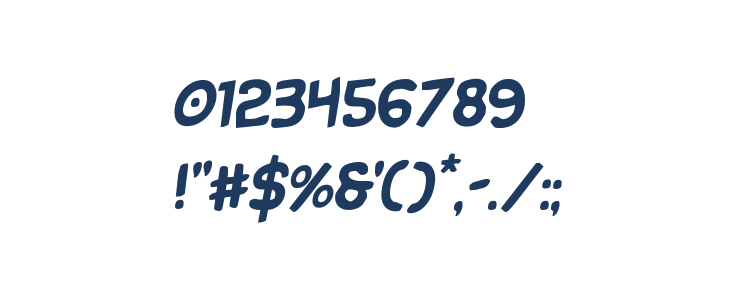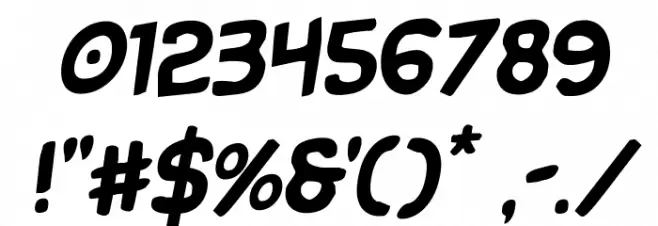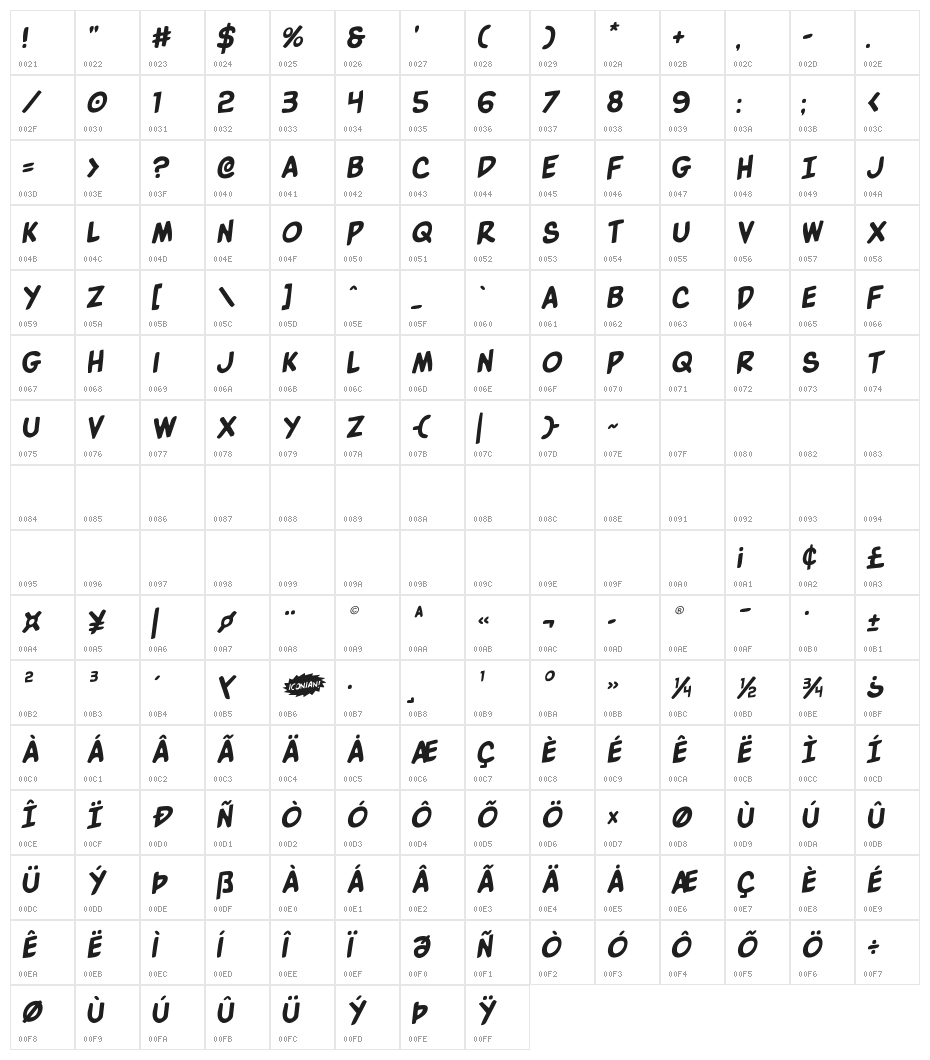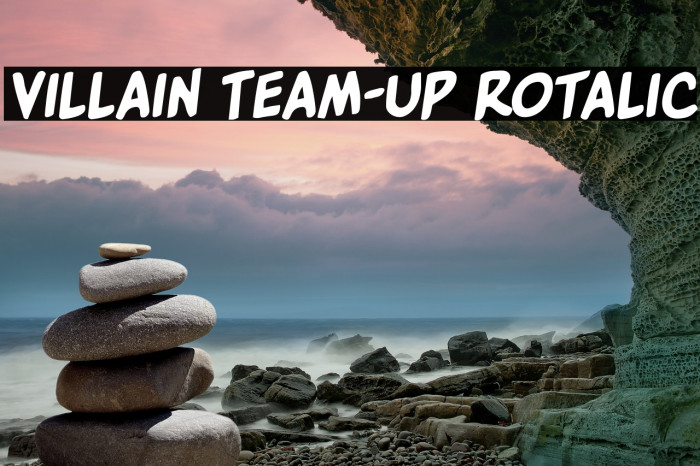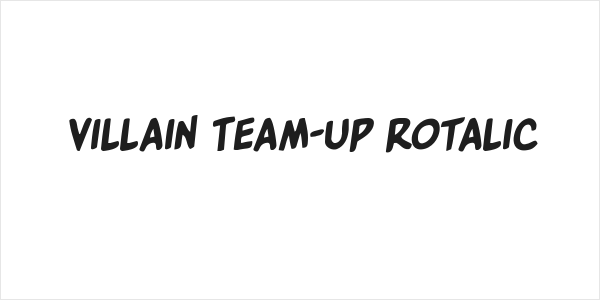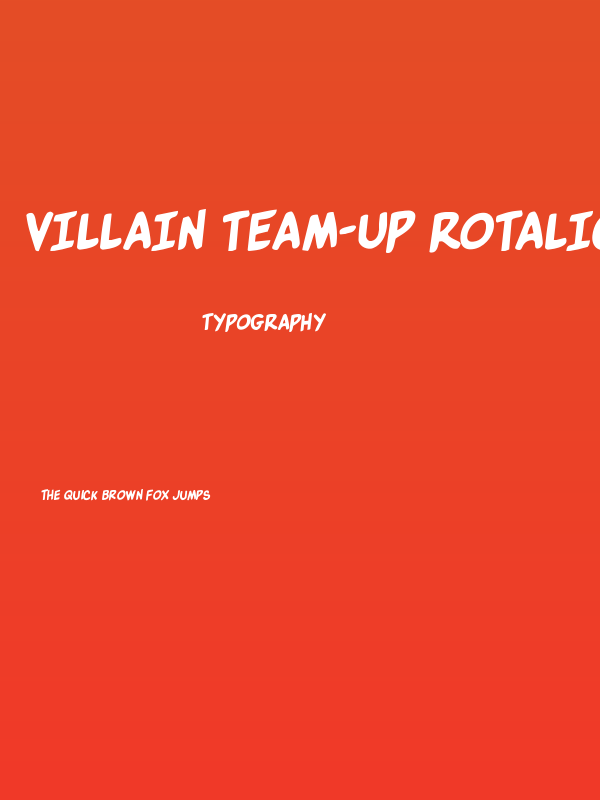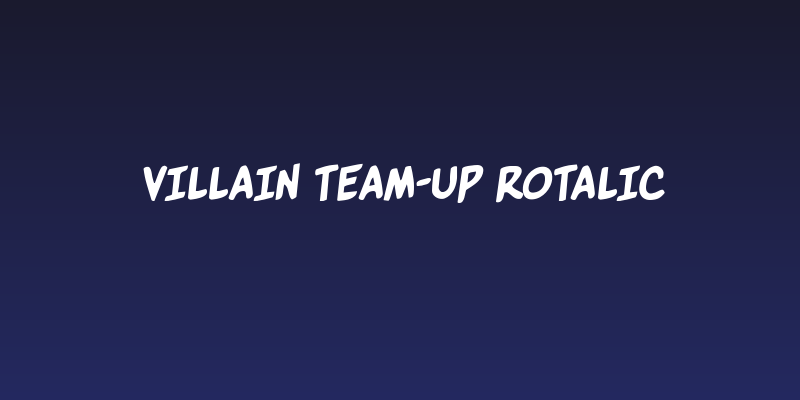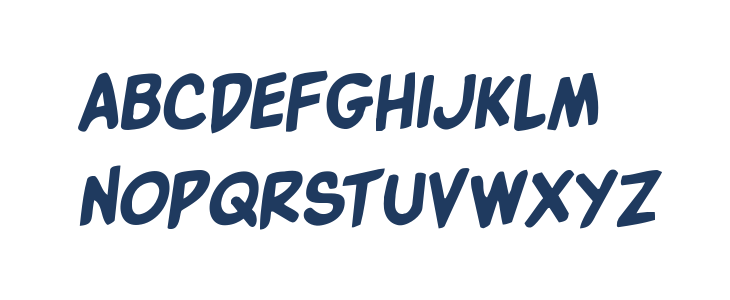
Villain Team-Up Rotalic Font
Villain Team-Up Rotalic Description
This font features a bold and dynamic style with a playful, handwritten appearance. The letters are slightly slanted, giving it an italicized look, while maintaining a consistent thickness throughout. The characters are rounded and smooth, exuding a casual and approachable vibe. The numbers and special characters follow the same style, ensuring uniformity across all glyphs. This font is well-suited for projects that require a fun and energetic feel, such as comic books, children's books, or playful branding materials.
| Proposed Projects | Ideal for comic books, children's books, playful branding, and casual invitations. |